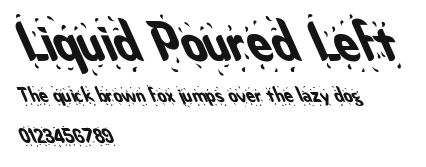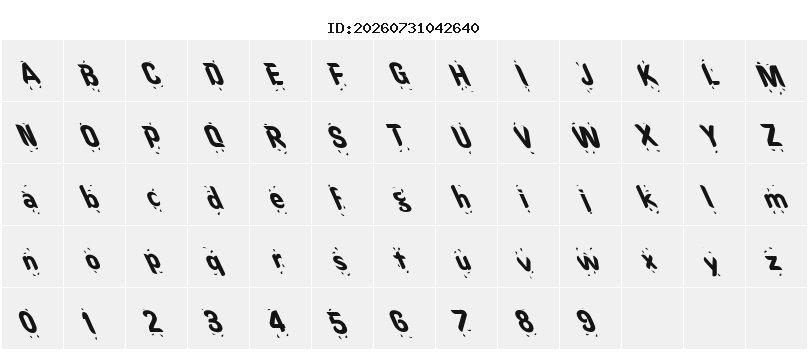
• Font Name: Liquid Poured Left
• Full Font Name: Liquid Poured Left
About Liquid Poured Left.ttf
Liquid Poured Left.ttf is a modern, elegant sans-serif font designed for ultimate readability and visual harmony. Perfect for branding, headlines, web design, and print materials.